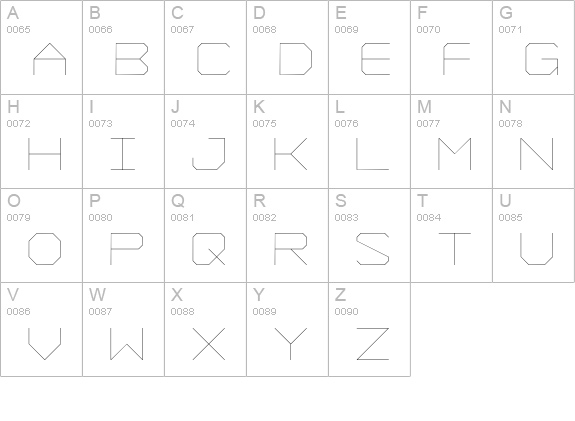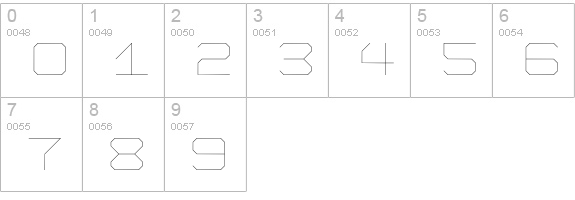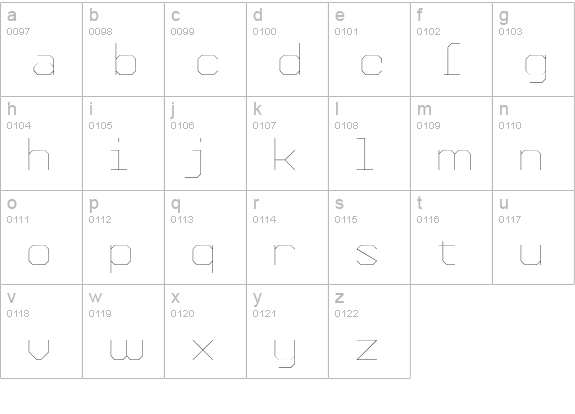
Formation Thin is a delicate, low-contrast variant in the Formation typeface family \xE2\x80\x94 well suited to fashion editorial, minimal branding, and high-contrast display.
Formation Thin font is a sleek and modern typeface that exudes elegance and sophistication. With its delicate lines and minimalist design, this font is perfect for creating a clean and contemporary look in your designs. Whether you're working on branding, editorial projects, or web design, Formation Thin font will add a touch of refinement to your work. The best part is that Formation Thin font is available for free download at FontsMarket.com. You can easily access this stylish font and use it in your projects without any cost. Don't miss out on the opportunity to enhance your designs with this versatile and eye-catching typeface. Download Formation Thin font today and elevate your creative projects to the next level.